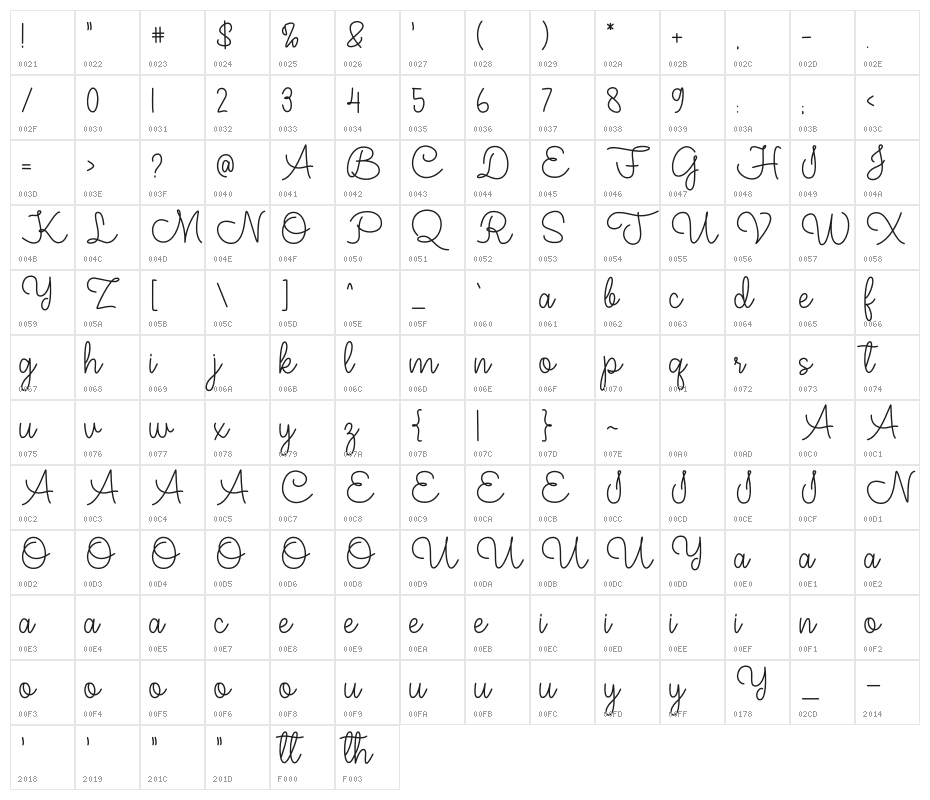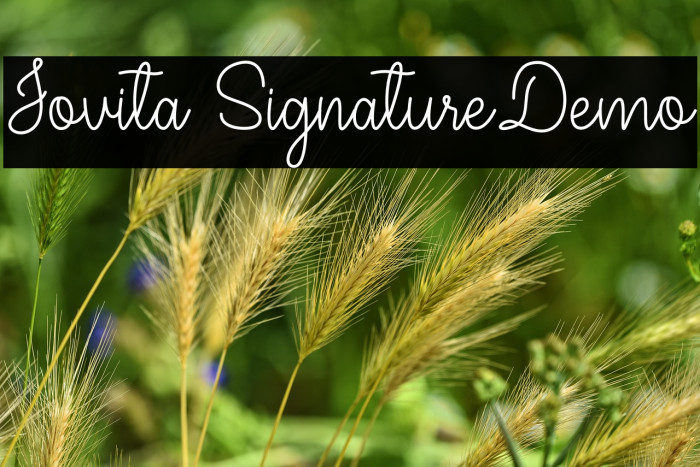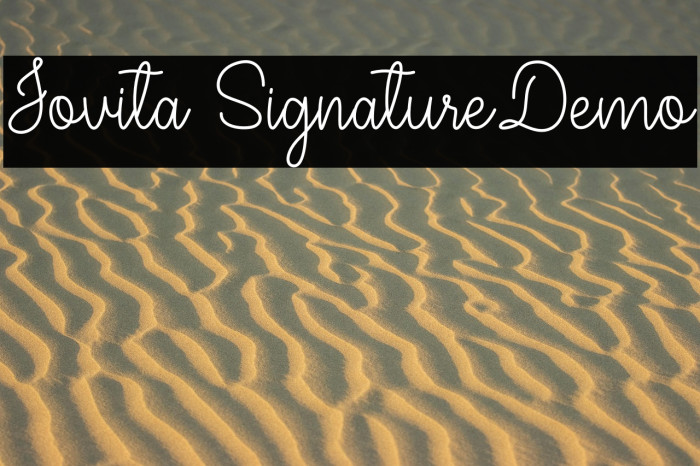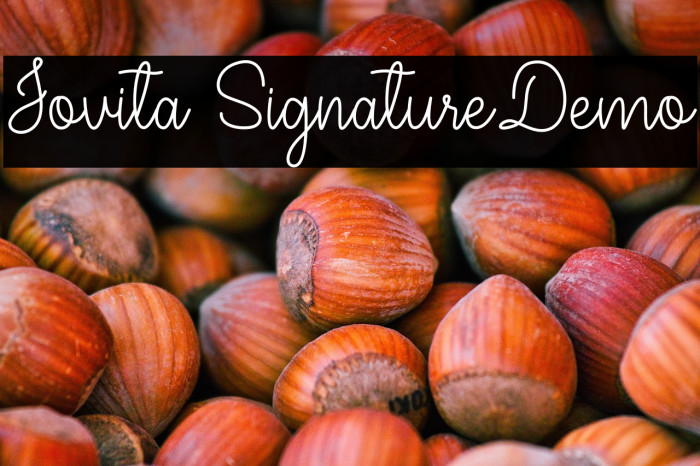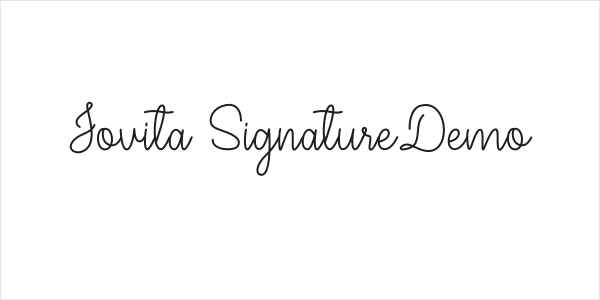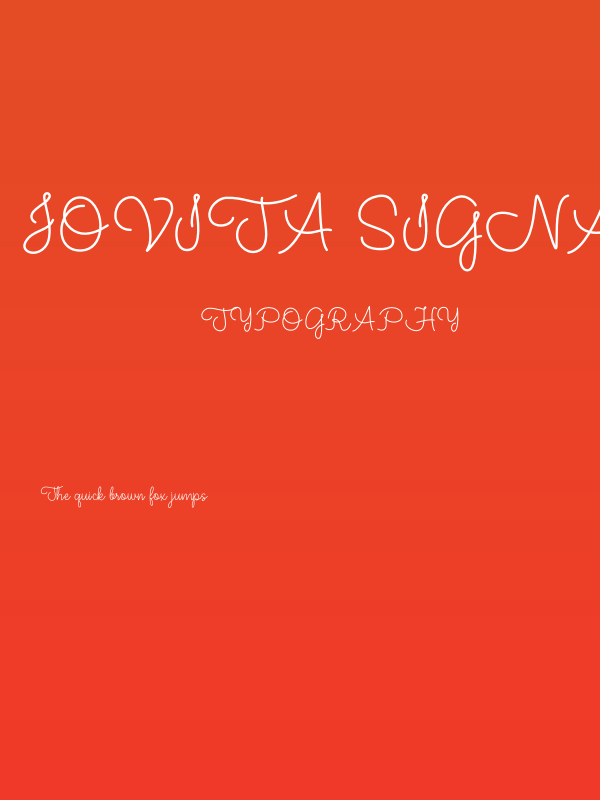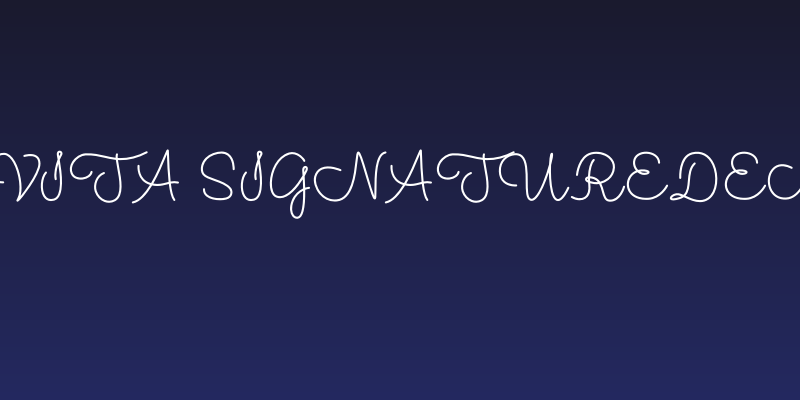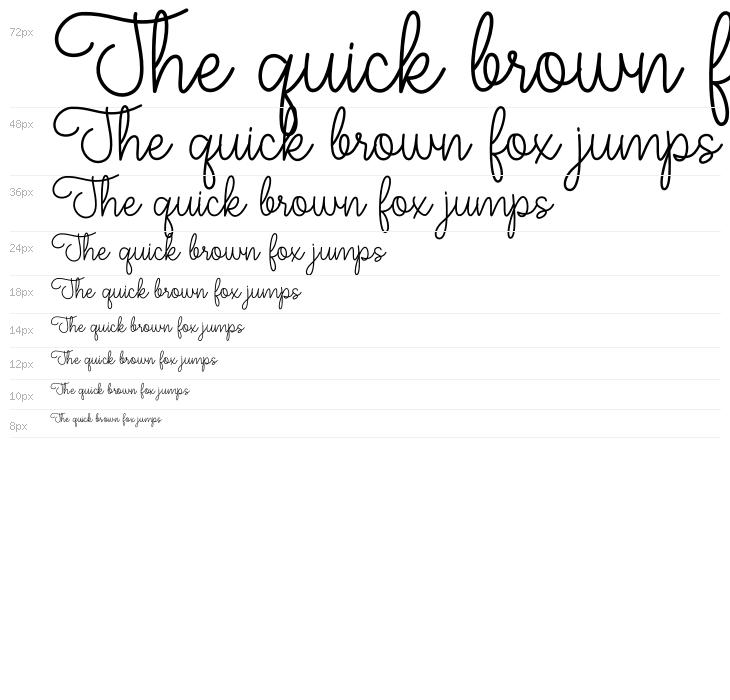
Jovita SignatureDemo Font
Jovita SignatureDemo Description
This font features a flowing, cursive style that mimics the elegance of handwritten script. The uppercase letters are distinct with a slight slant, while the lowercase letters are more fluid and connected, creating a seamless flow. The numerals are clear and maintain the same cursive style, adding a touch of sophistication. Special characters are well-integrated, maintaining the overall aesthetic. The font's design is both artistic and legible, making it suitable for creative projects that require a personal touch.
| Proposed Projects | Ideal for wedding invitations, personal branding, greeting cards, and artistic projects. |